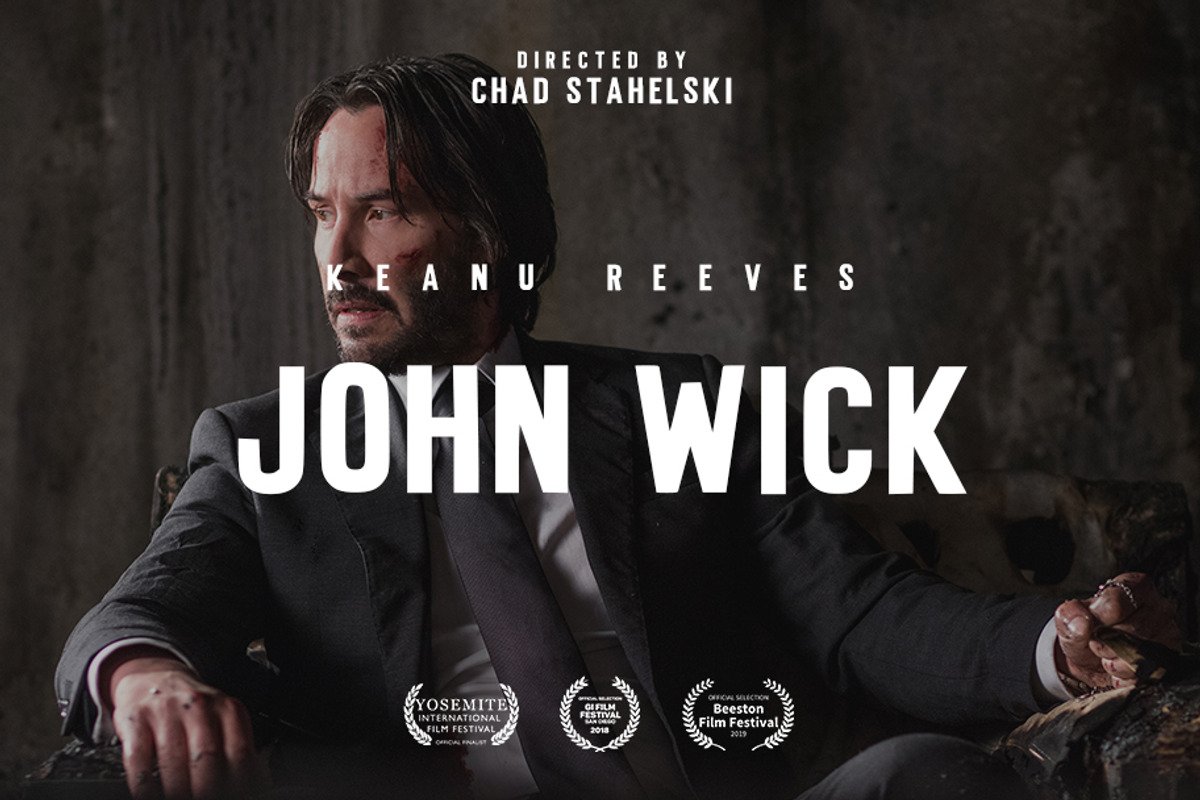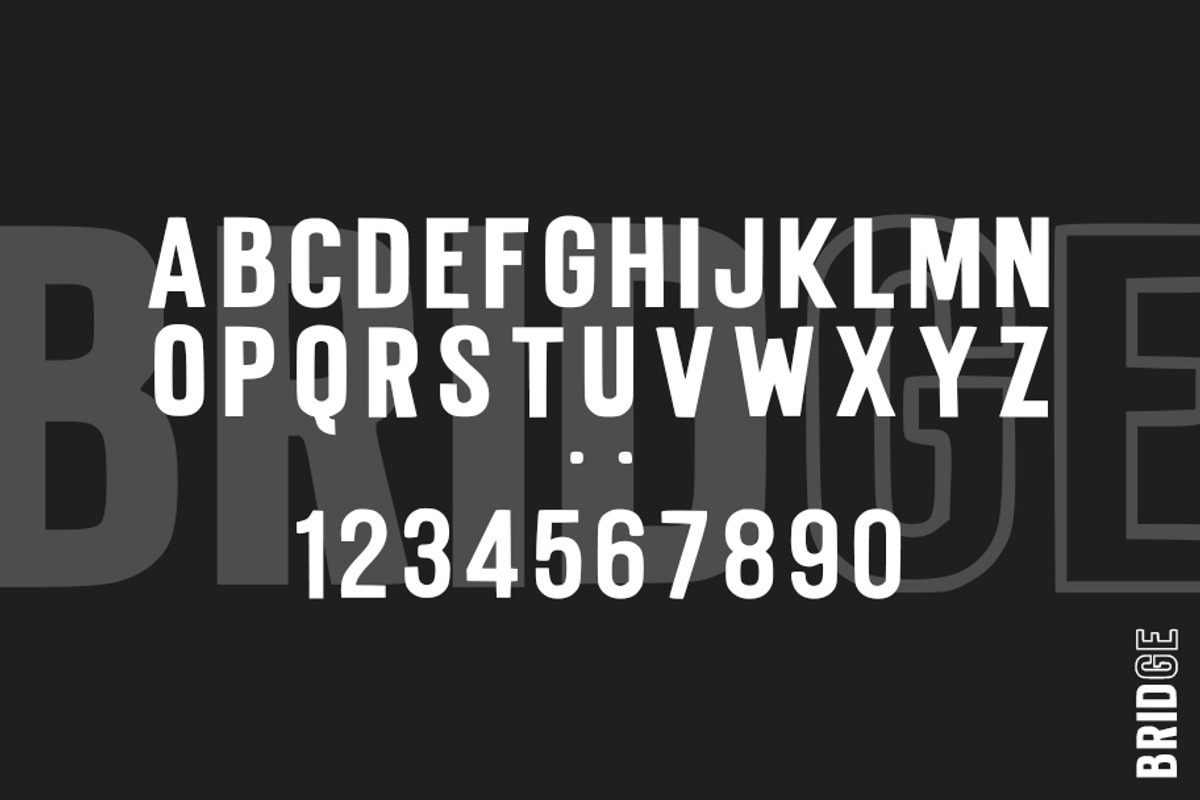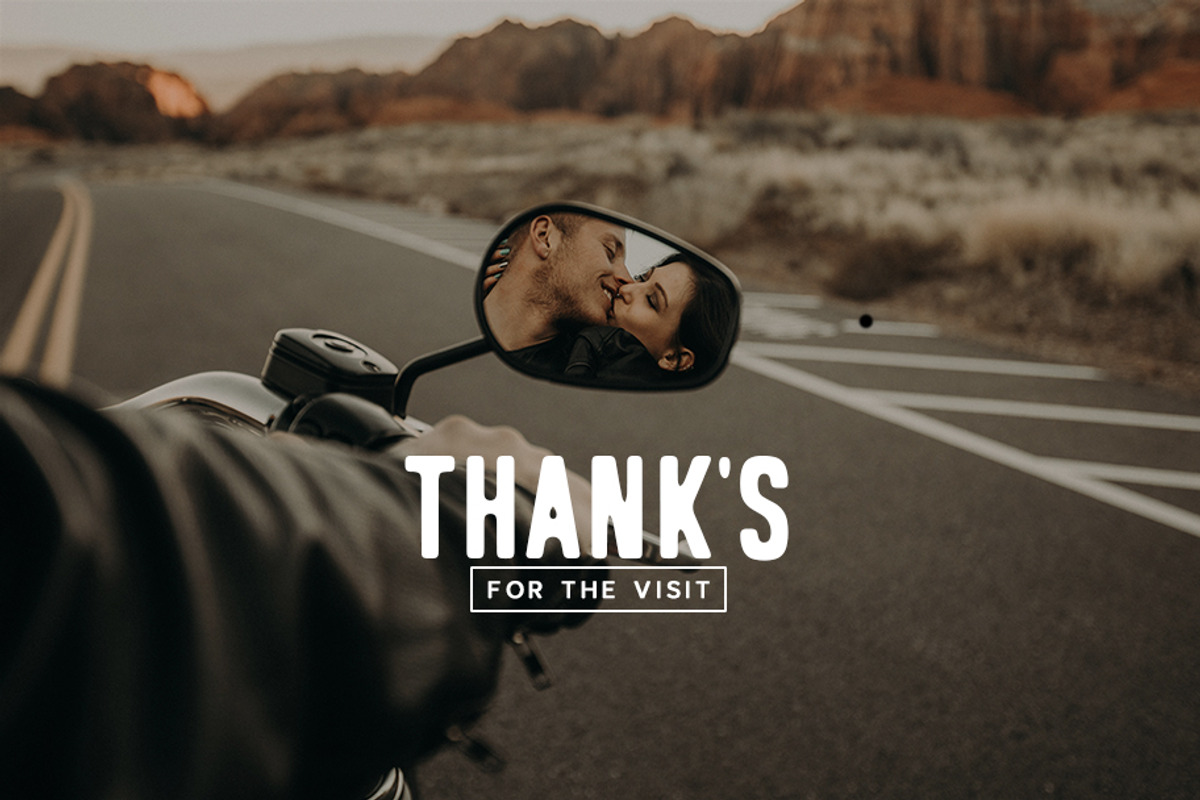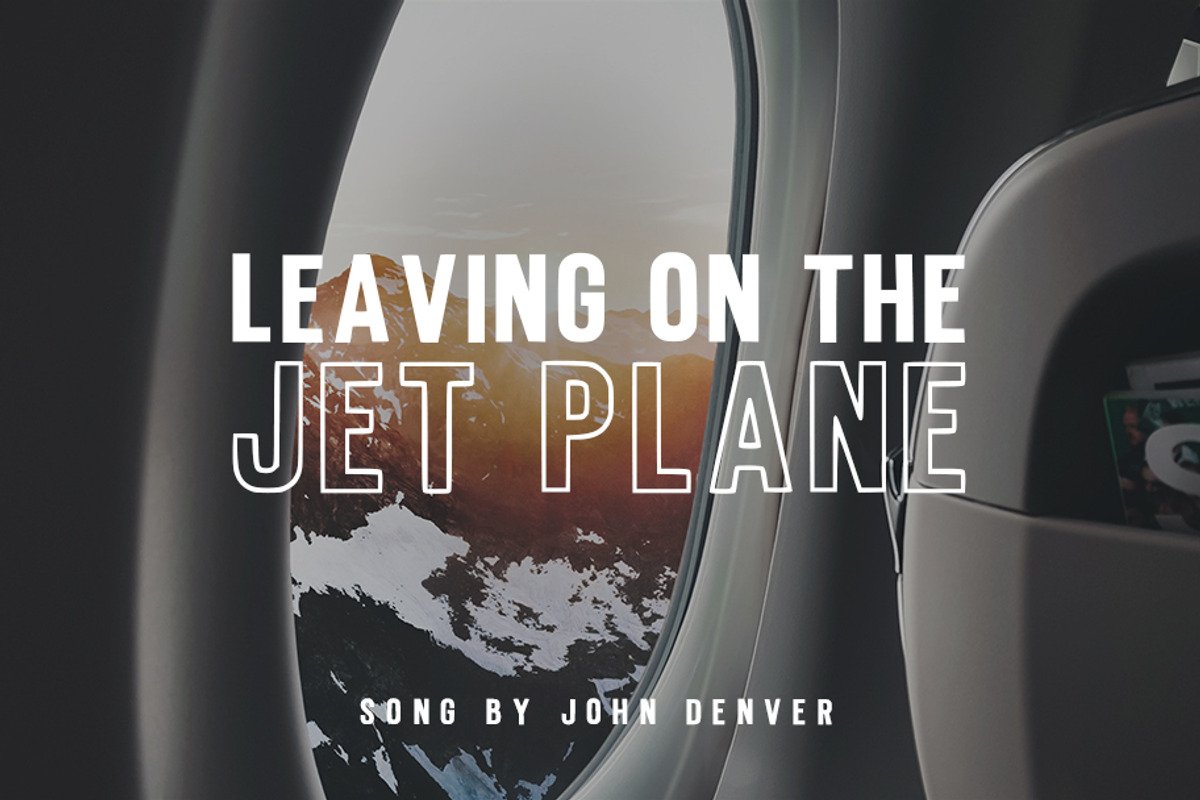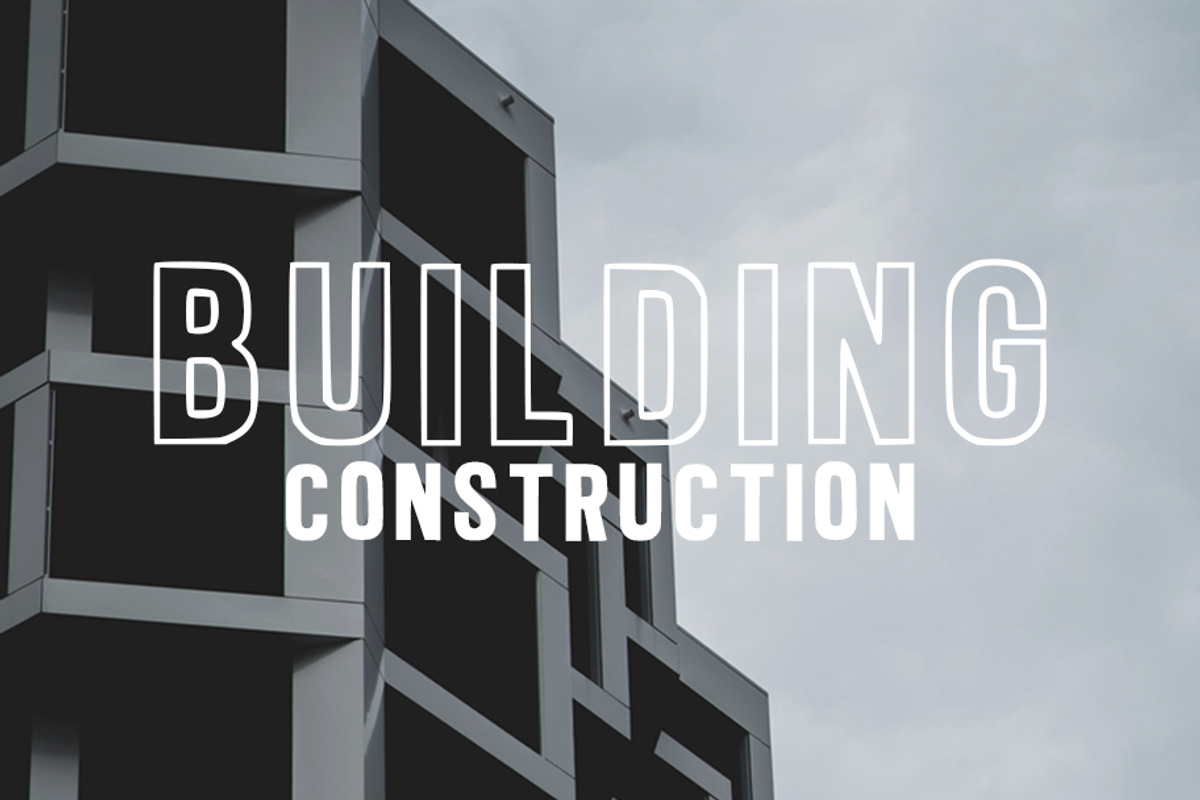
Bridge Font
Font Bridge is inspired by the model or shape of the building that is sturdy and strong. As with bridge characters, this font has a style that is sturdy, thick, strong, looks modern and slightly firm.
Various conditions can use this font for your work needs, for example: posters, action film titles, documentary movie titles, business card designs, quotes, etc. (you can develop it)
- As with bridge characters, this font has a style that is sturdy, thick, strong, looks modern and slightly firm.
Bridge Font by Qomikin Studio fits naturally into Branding, posters, packaging, typography.